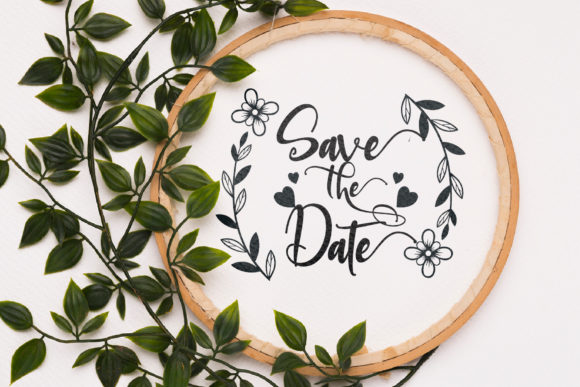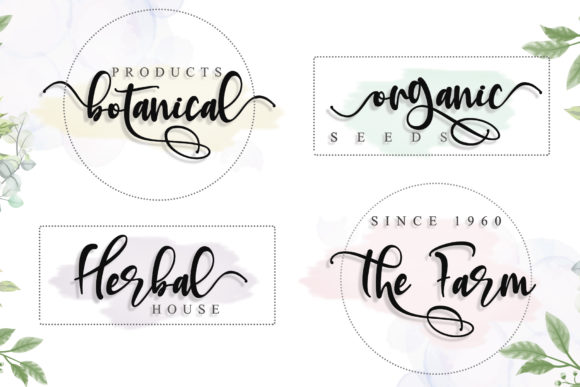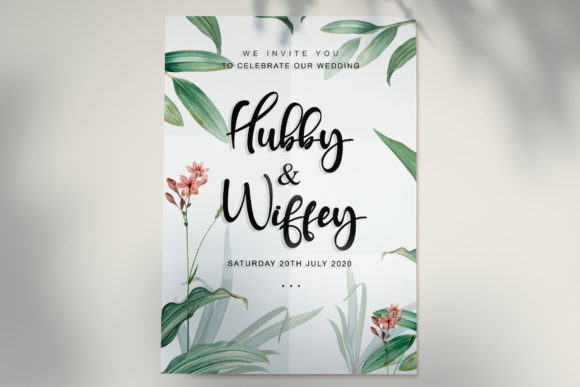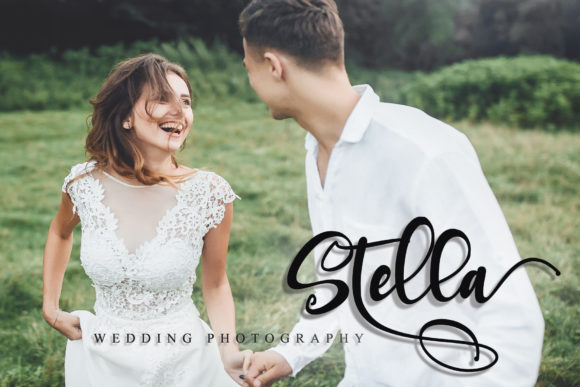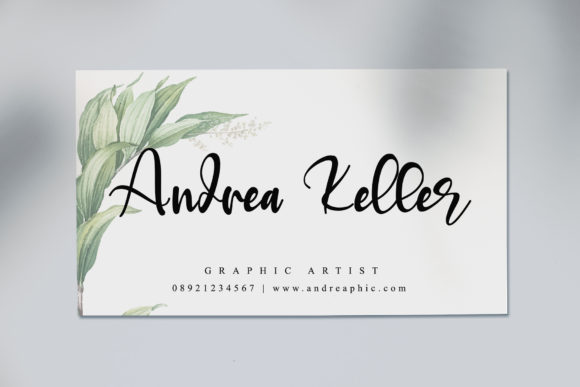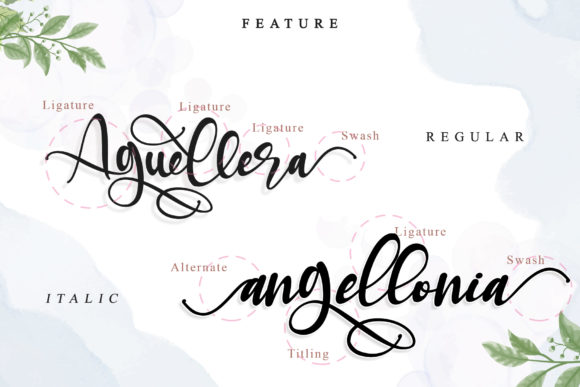
Unlock the Magic of Typography: Introducing Aguellera Font
As designers, we’ve all been there – staring at a blank canvas, searching for the perfect font to bring our vision to life. And then, it happens. That moment of inspiration when the right font clicks, and our project suddenly takes shape. For me, that moment came when I discovered the enchanting Aguellera Font. With its delicate curves and elegant flair, this magical font has become my go-to for a wide range of design projects.
So, what makes Aguellera Font so special? This beautifully crafted PUA encoded font boasts a varying baseline, smooth lines, gorgeous glyphs, and stunning alternates – making it the perfect addition to any designer’s toolkit. Whether you’re working on branding, headings, wedding designs, or invitations, Aguellera Font is sure to elevate your project to new heights.
For designers, the value of a high-quality font like Aguellera Font cannot be overstated. It’s not just about aesthetics; it’s about creating a lasting impression and setting your work apart from the rest. With Aguellera Font, you can trust that your designs will be truly unforgettable.
Aguellera Font Key Features
- Font Type: Script, Calligraphy
- Unique Characteristics: Elegant, luxurious, and highly decorative, Aguellera Font is ideal for formal invitations, wedding stationery, and luxury branding.
- Language Support: Multi-language support, including Latin-based languages, Cyrillic, and Greek.
Aguellera Font Review
As a designer, I was excited to dive into the Aguellera Font and see what it had to offer. Overall, I’d say it’s a solid choice for projects that require a touch of elegance and sophistication. ✨ The font’s sleek lines and refined curves make it perfect for luxury brands, fashion labels, and high-end products.
- ✨ Elegant and refined design, making it perfect for luxury brands and high-end products
- ✨ Excellent legibility, even at small font sizes
- ✨ Supports a wide range of languages, making it a great choice for international projects
However, there are a few limitations to consider. ⚠️ The font is not as versatile as some other options, and it may not be the best choice for projects that require a lot of bold or italic text. Additionally, the font’s design can feel a bit generic at times, which may not be ideal for projects that require a unique or distinctive look.
- ⚠️ Limited versatility, may not be suitable for projects with a lot of bold or italic text
- ⚠️ Design can feel generic at times, may not be ideal for projects that require a unique look
Overall, I’d give the Aguellera Font a solid 3.5 out of 5 stars. While it’s not the most exciting option on the market, it’s a reliable choice for projects that require a touch of elegance and sophistication.
Tips: Use Aguellera Font for headings and titles to add a touch of elegance to your design. Experiment with different font sizes and styles to create visual interest.
Tips: Use Aguellera Font for titles, headings, and body text to create a consistent look and feel. Experiment with layer styles and effects to enhance the font’s appearance.
Tips: Use Aguellera Font for titles, headings, and body text to create a professional look. Experiment with different font sizes and styles to create visual interest.
Great Vibes Font is a modern, elegant, and cursive script font. It’s ideal for use in wedding invitations, quotes, and any design that requires a touch of sophistication and elegance. Great Vibes Font has a more refined and precise feel compared to Aguellera Font, making it suitable for formal designs.
Pacifico Font is a beautiful, elegant, and modern script font. It’s perfect for use in branding, advertising, and any design that requires a touch of luxury and sophistication. Pacifico Font is more refined and polished compared to Aguellera Font, making it suitable for high-end designs.